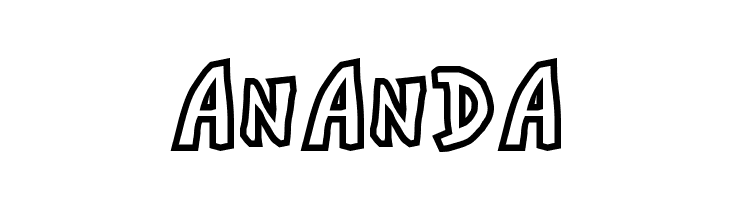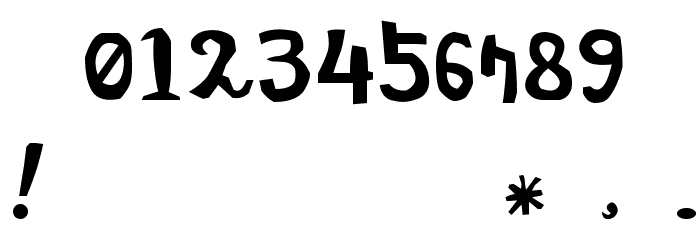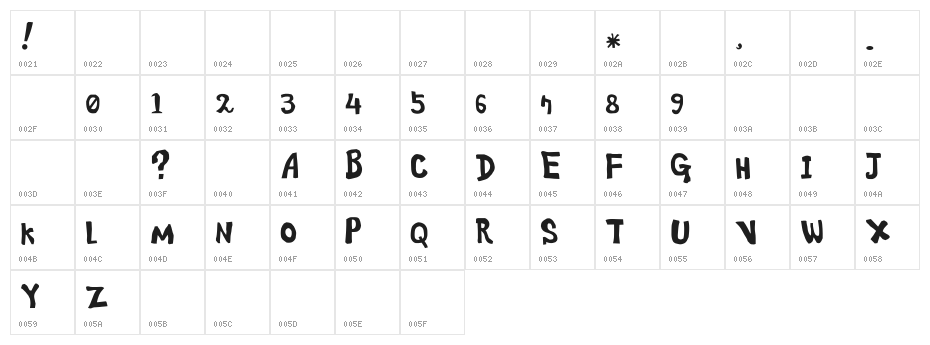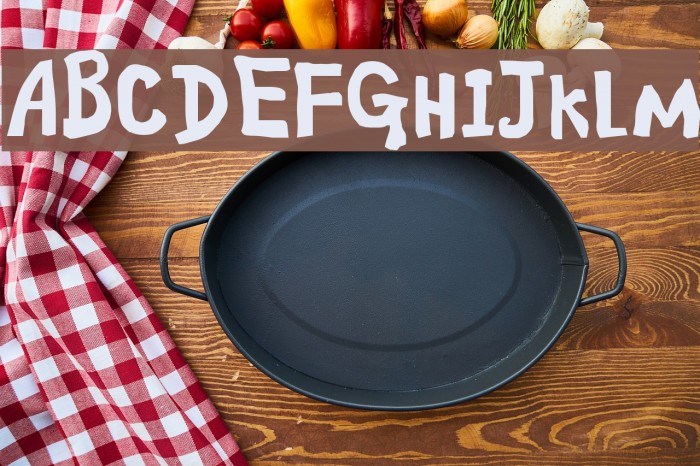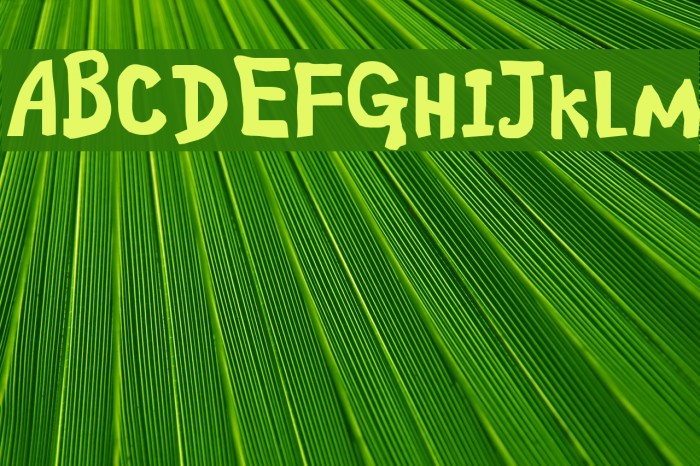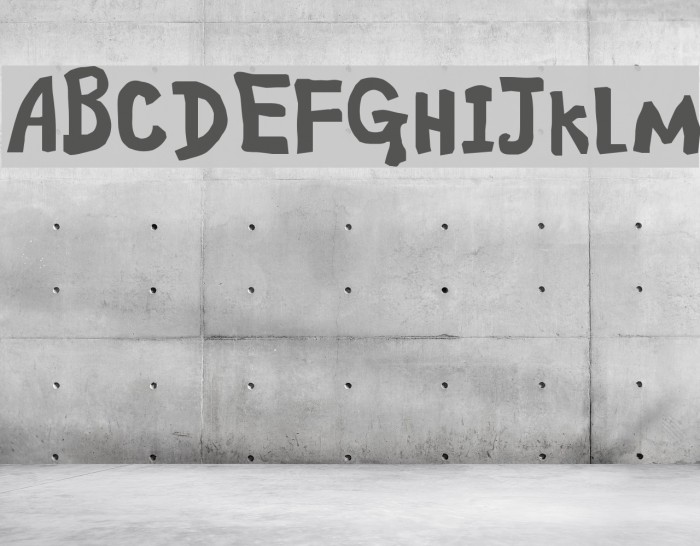
ananda Font
ananda Description
This font features a playful and bold design with irregular, hand-drawn characters. The uppercase and lowercase letters exhibit a whimsical style, with uneven lines and varying thickness, giving it a lively and energetic appearance. The numbers and special characters maintain this playful aesthetic, making the font suitable for creative and informal projects. Its unique style is reminiscent of doodles or comic book lettering, adding a touch of fun and personality to any design.
Overall StylePlayful, Whimsical
Proposed ProjectsIdeal for children's books, comic strips, playful branding, and creative posters.